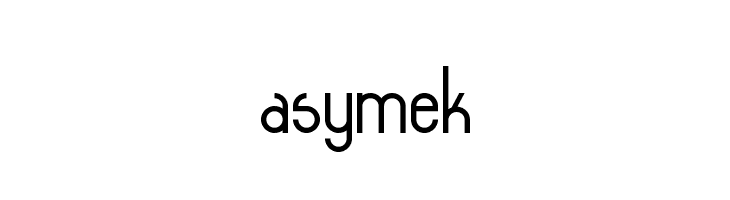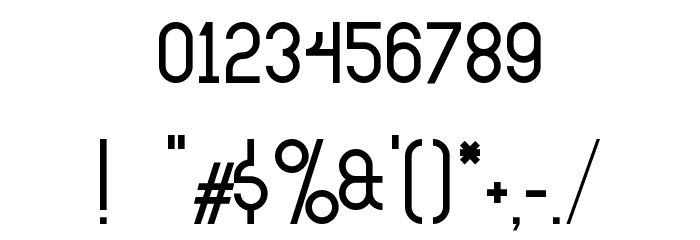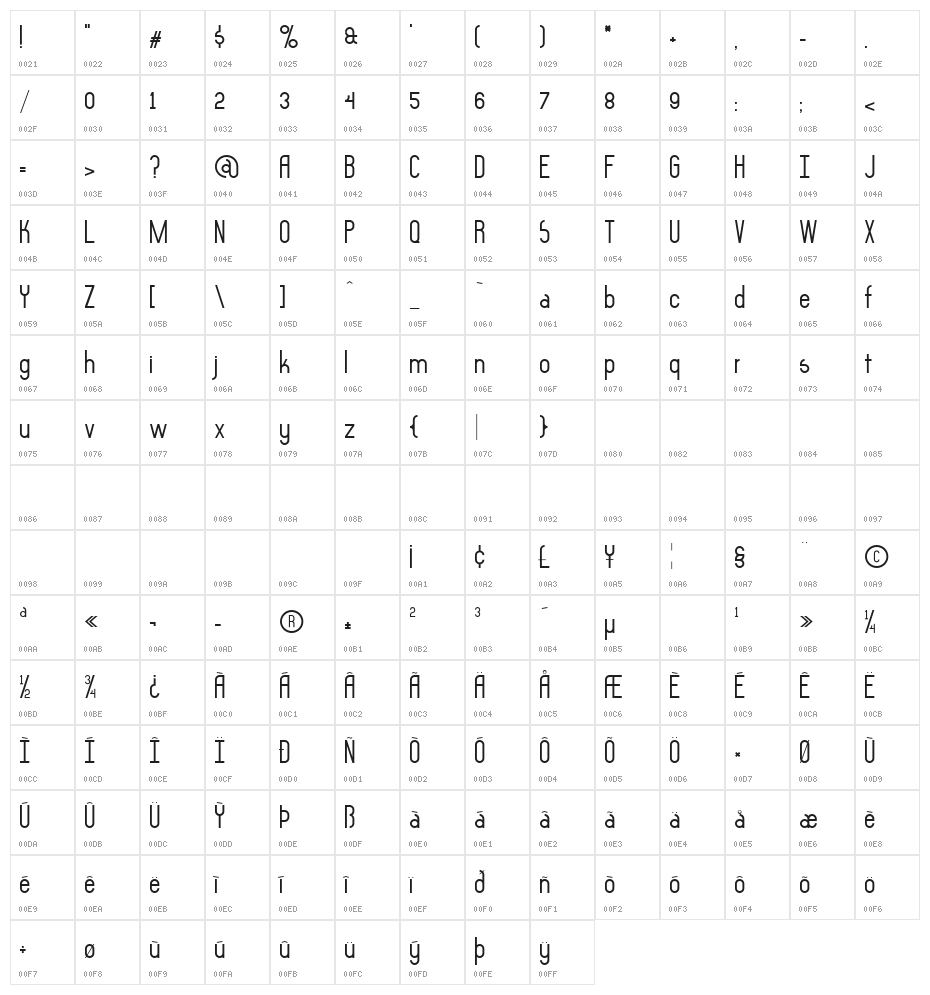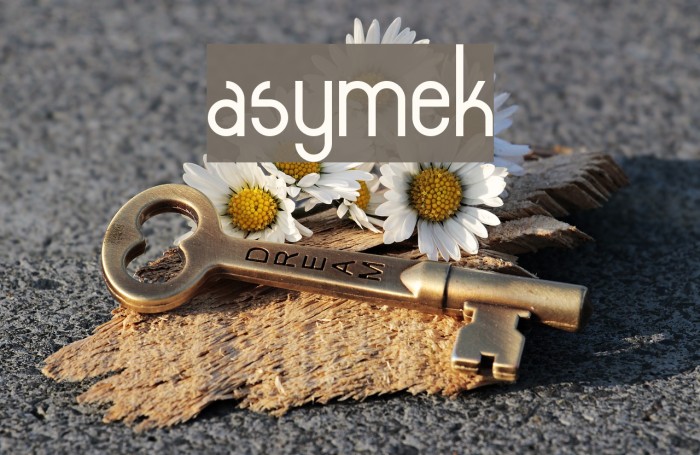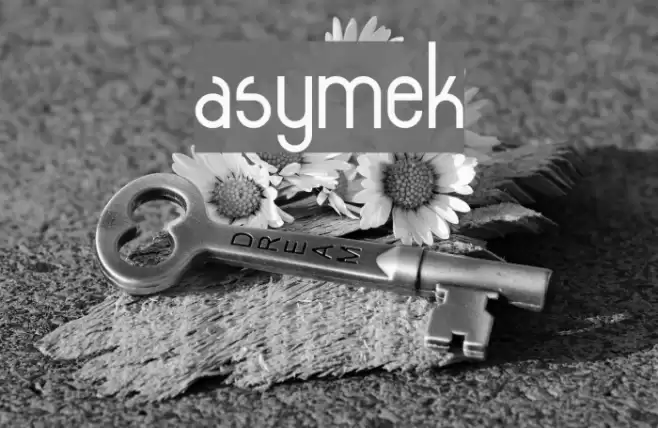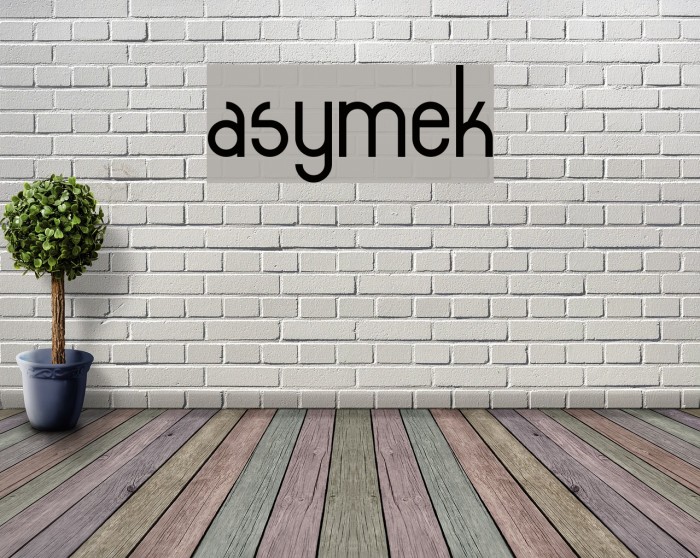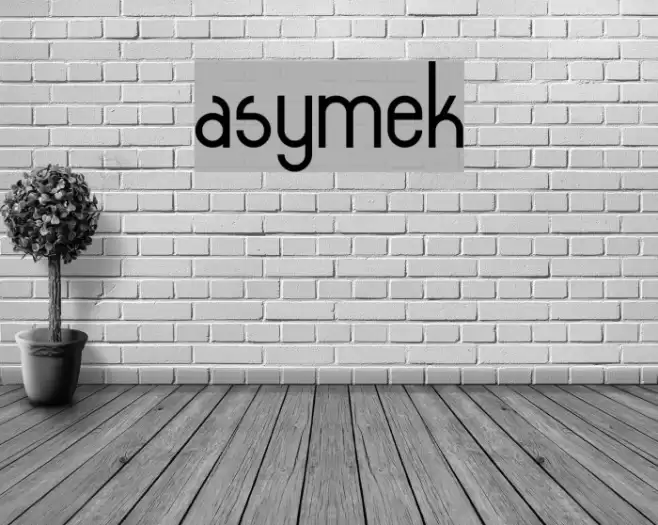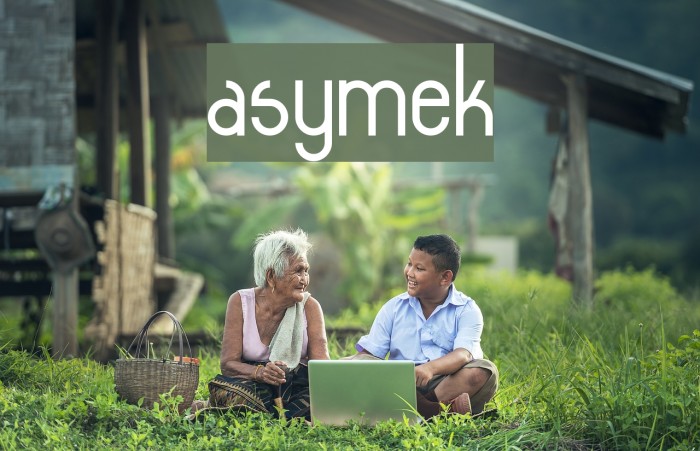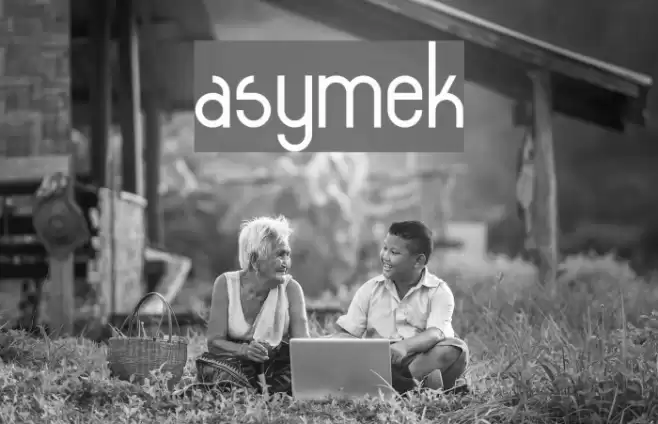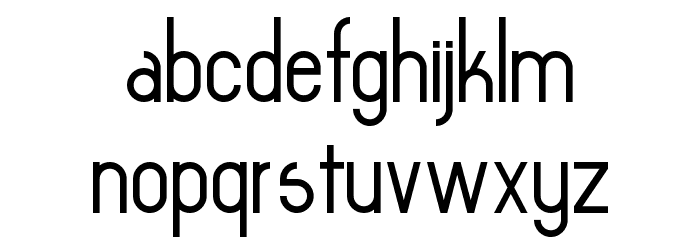
asymek Font
asymek Description
This font features a modern and geometric design with clean, straight lines and a uniform structure. The uppercase letters are tall and narrow, giving a sleek appearance, while the lowercase letters maintain a consistent height and width, ensuring readability. The numbers are distinct and align well with the overall style, making them suitable for various applications. Special characters are designed with the same geometric precision, adding to the font's cohesive look. The font's simplicity and clarity make it versatile for both digital and print media.